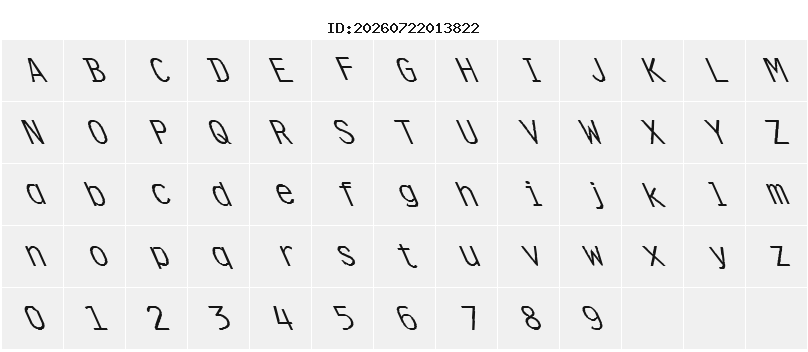
FZ DIGITAL 4 LEFTY Preview
• Font Name: FZ DIGITAL 4 LEFTY
• Full Font Name: FZ DIGITAL 4 LEFTY
About FZ DIGITAL 4 LEFTY.ttf
FZ DIGITAL 4 LEFTY.ttf is a modern, elegant sans-serif font designed for ultimate readability and visual harmony. Perfect for branding, headlines, web design, and print materials.